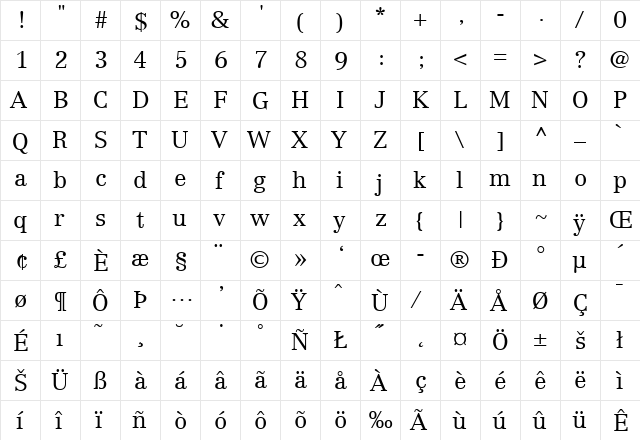
Centennial-Light Regular
Design Context for Centennial-Light Typeface
Centennial-Light offers clean, dependable letterforms without strong stylistic allegiance, making it a practical choice for designers who need flexibility. Its slender proportions lend an understated elegance to any composition.